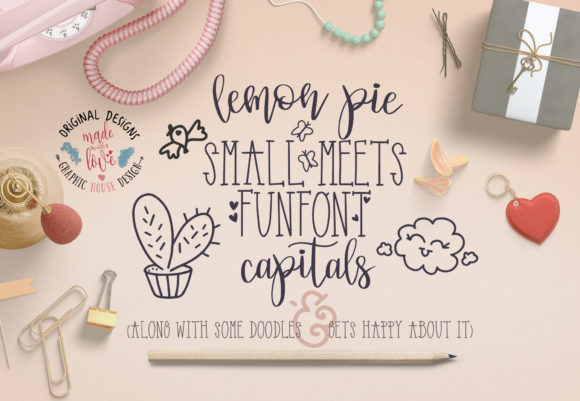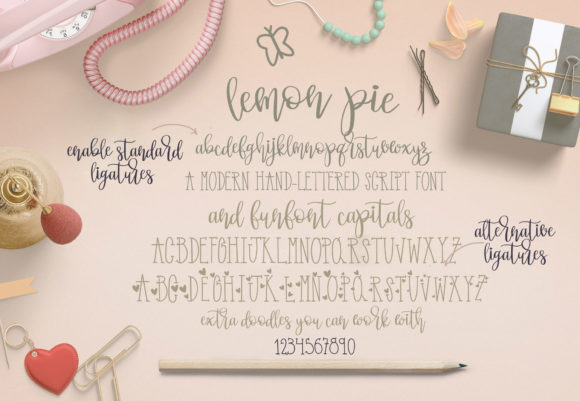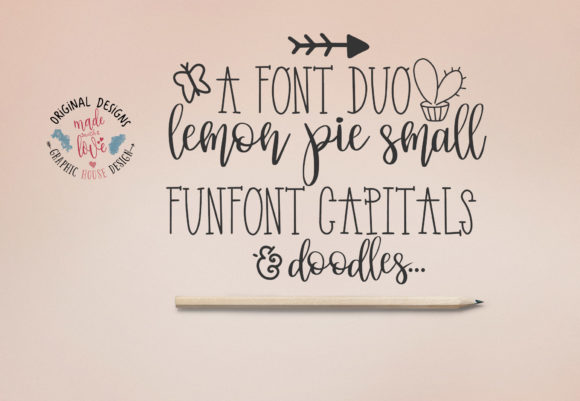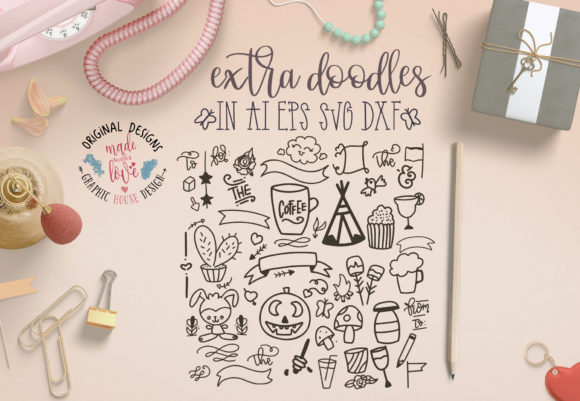
Lemon Pie Funfont Duo Font
About Lemon Pie Funfont Duo Font
The Lemon pie small and Funfont is an amazing font duo.
The Lemon Pie Small is a modern handlettered script with a tall R and T. It’s feminine and is perfect for adding a playful touch to your designs.The Funfont includes capital letters and numbers and can be combined perfectly
Included as a bonus are fun doodles!